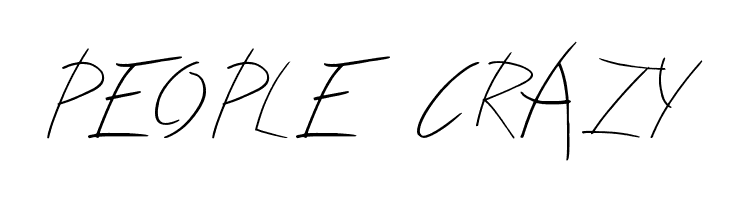
Morning Friday Font
- Font: Morning Friday
( Fonts by Jonathan Harris - www.tattoowoo.com )
A playful, hand-drawn font with a whimsical, childlike style.